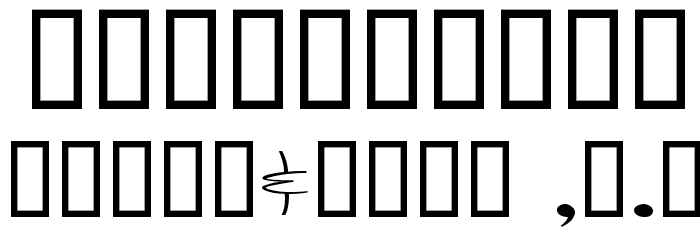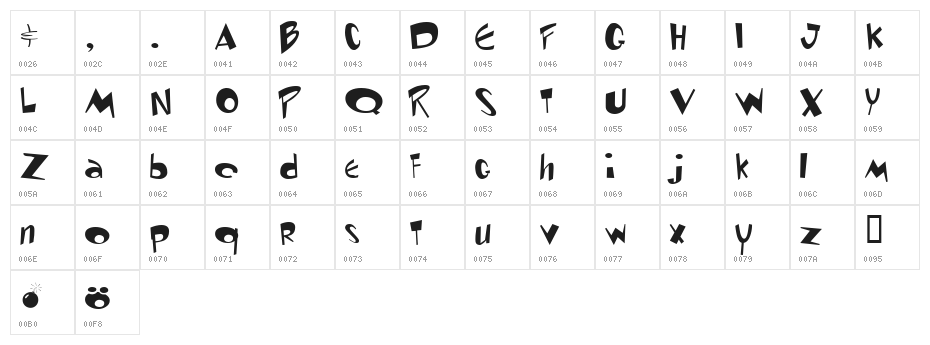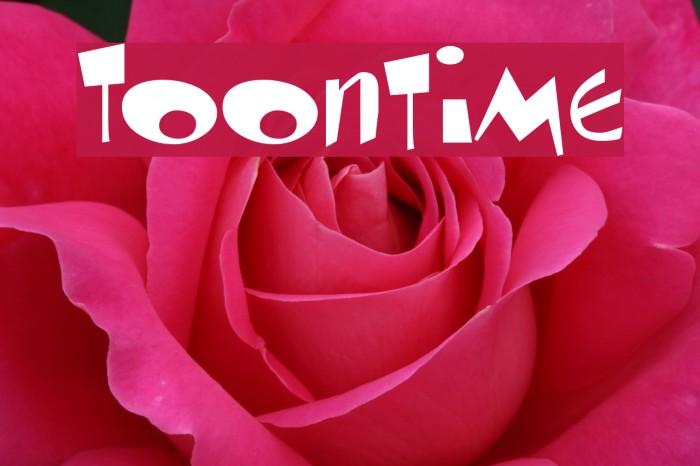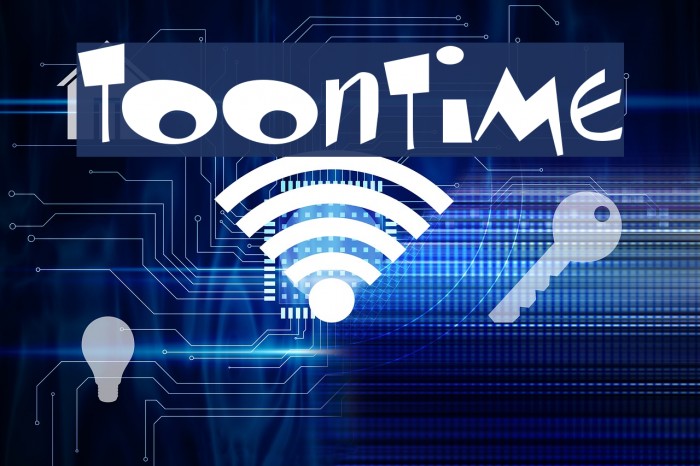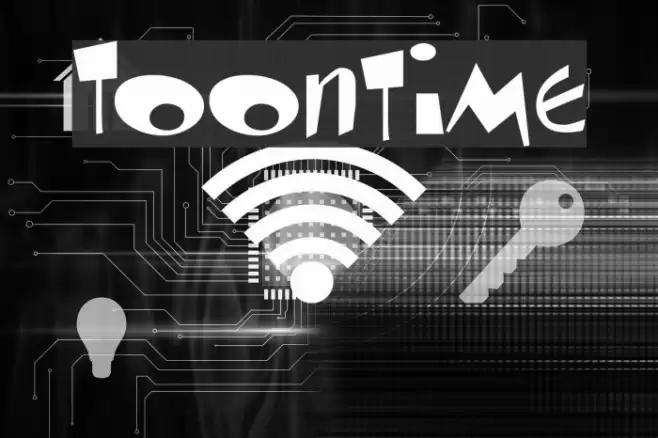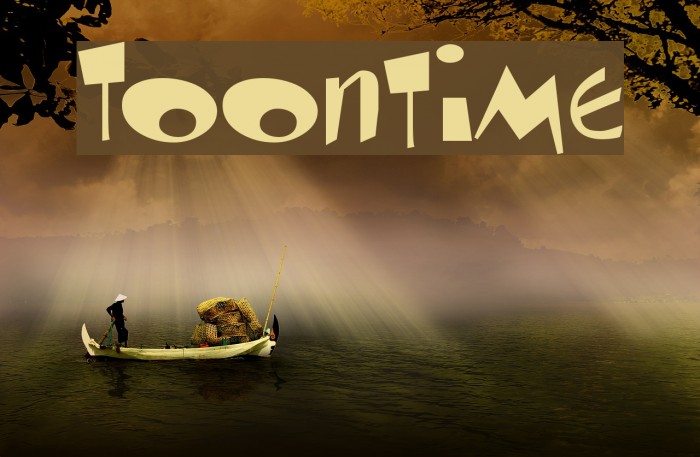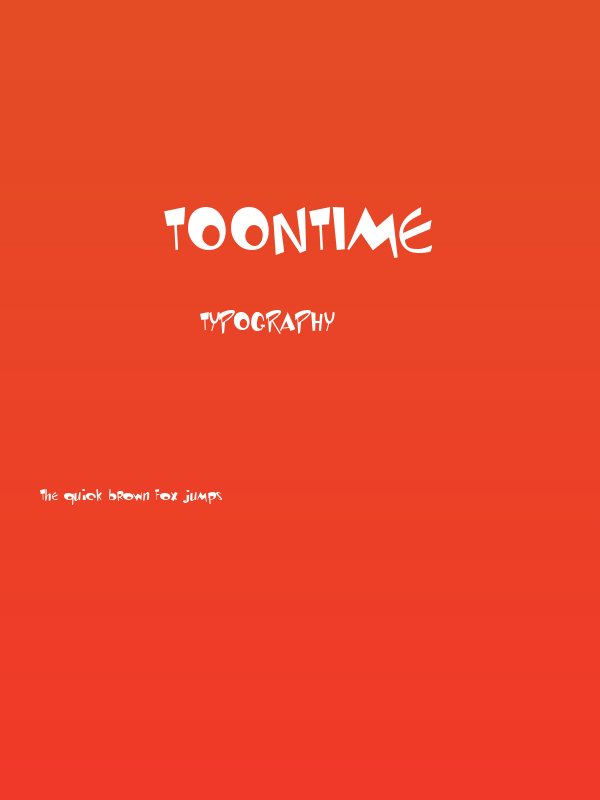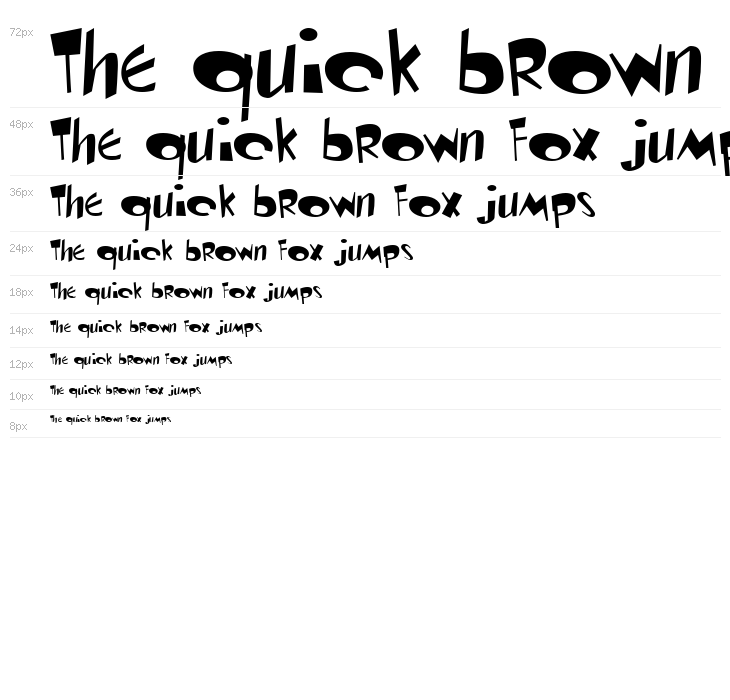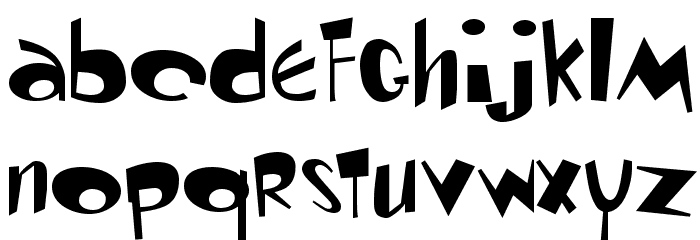
Toontime Font
Toontime Description
This playful and whimsical font features exaggerated, cartoon-like characters with a lively and energetic feel. The uppercase letters are bold and dynamic, with varying stroke thicknesses that add a sense of movement and fun. The lowercase letters maintain this playful style, with quirky shapes and a slightly irregular baseline that enhances the font's informal and animated appearance. The numbers and special characters follow the same energetic design, making the font suitable for creative and entertaining projects. Its unique style is perfect for capturing attention and adding a touch of humor and excitement to any design.
Overall StylePlayful, Whimsical
Proposed ProjectsIdeal for children's books, comic strips, playful branding, and animated video titles.